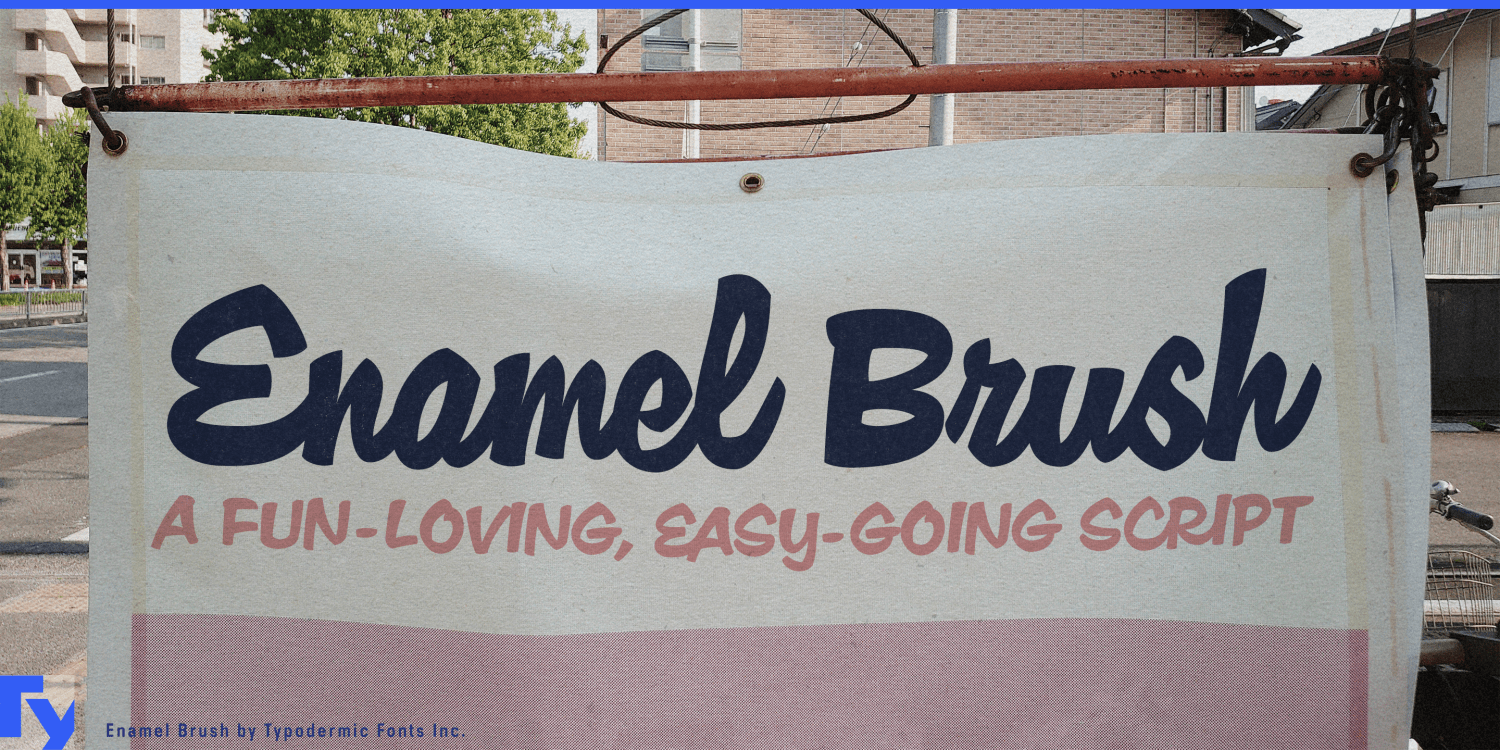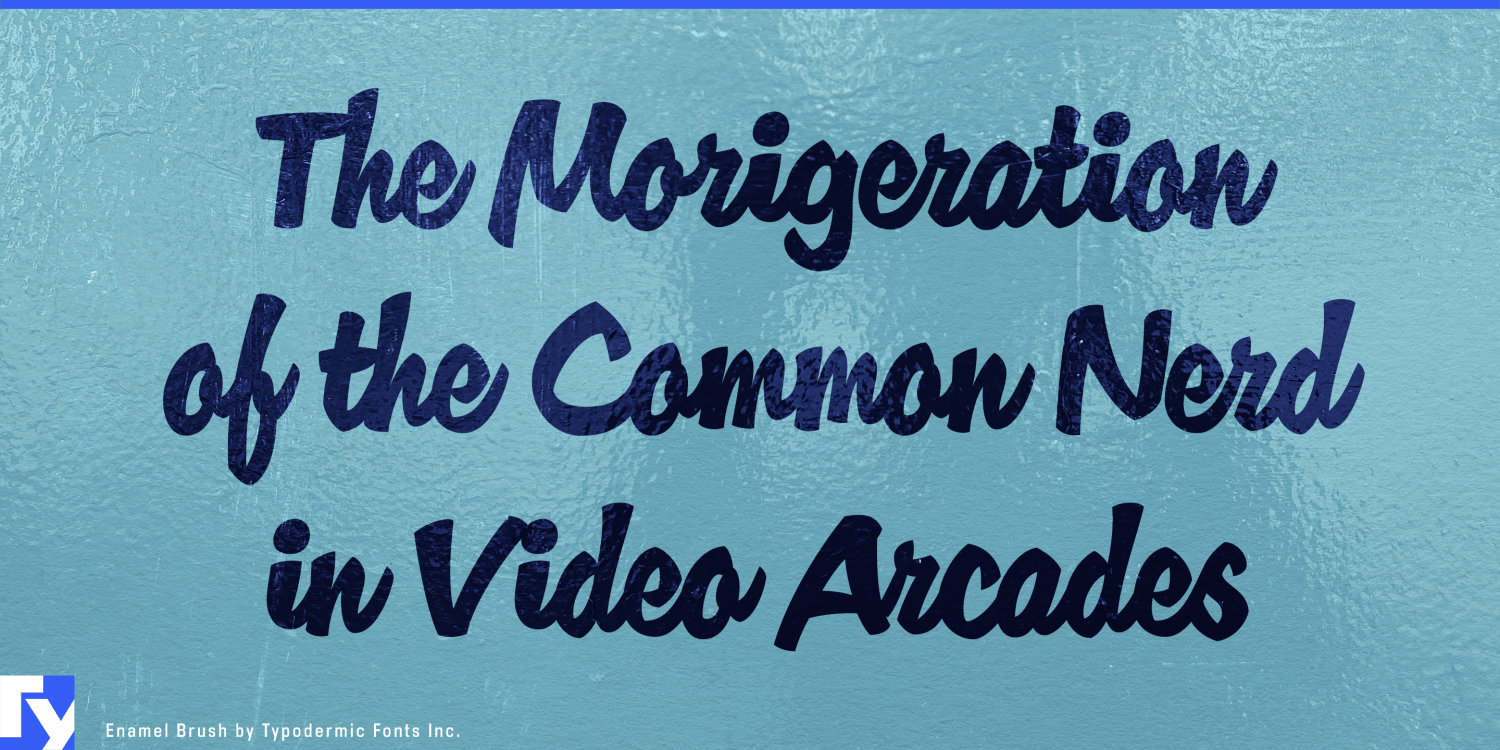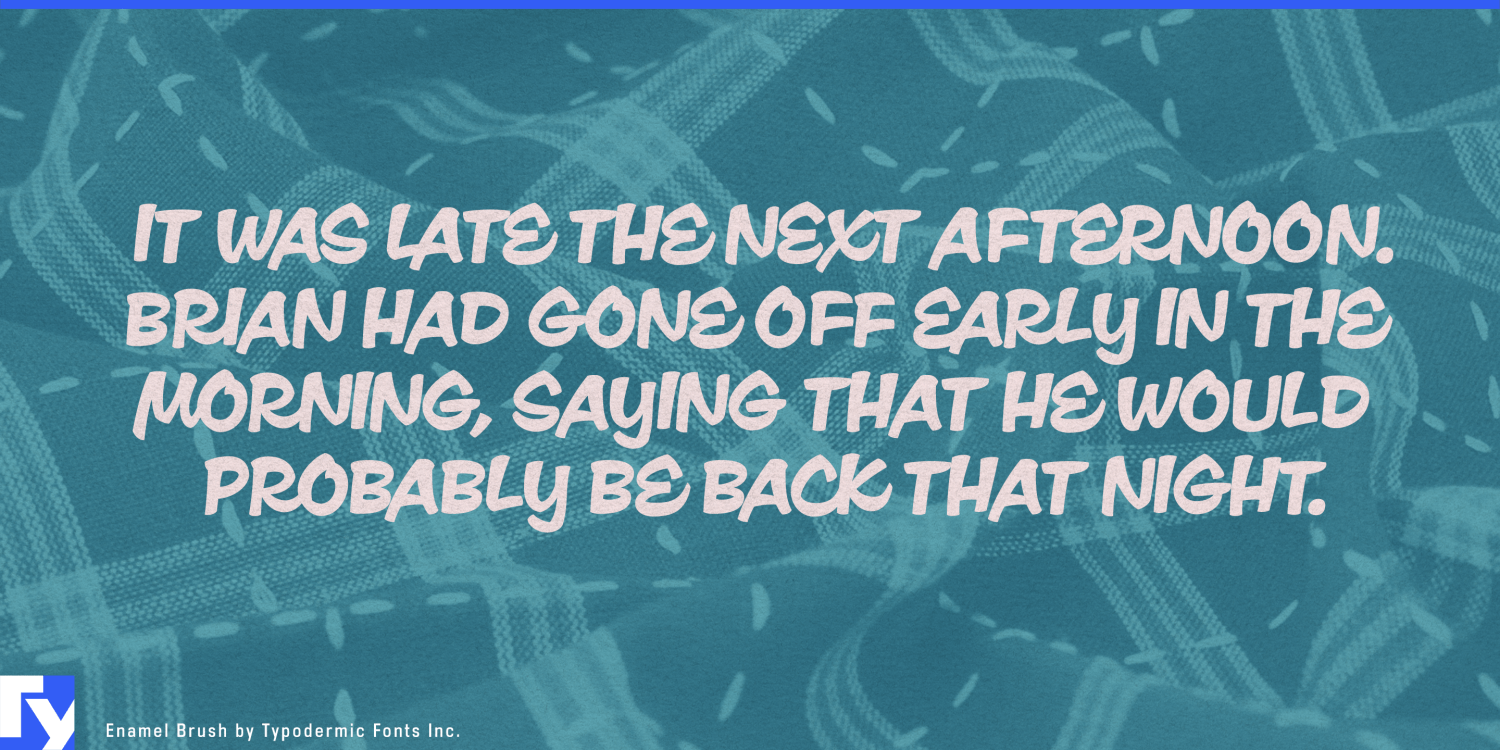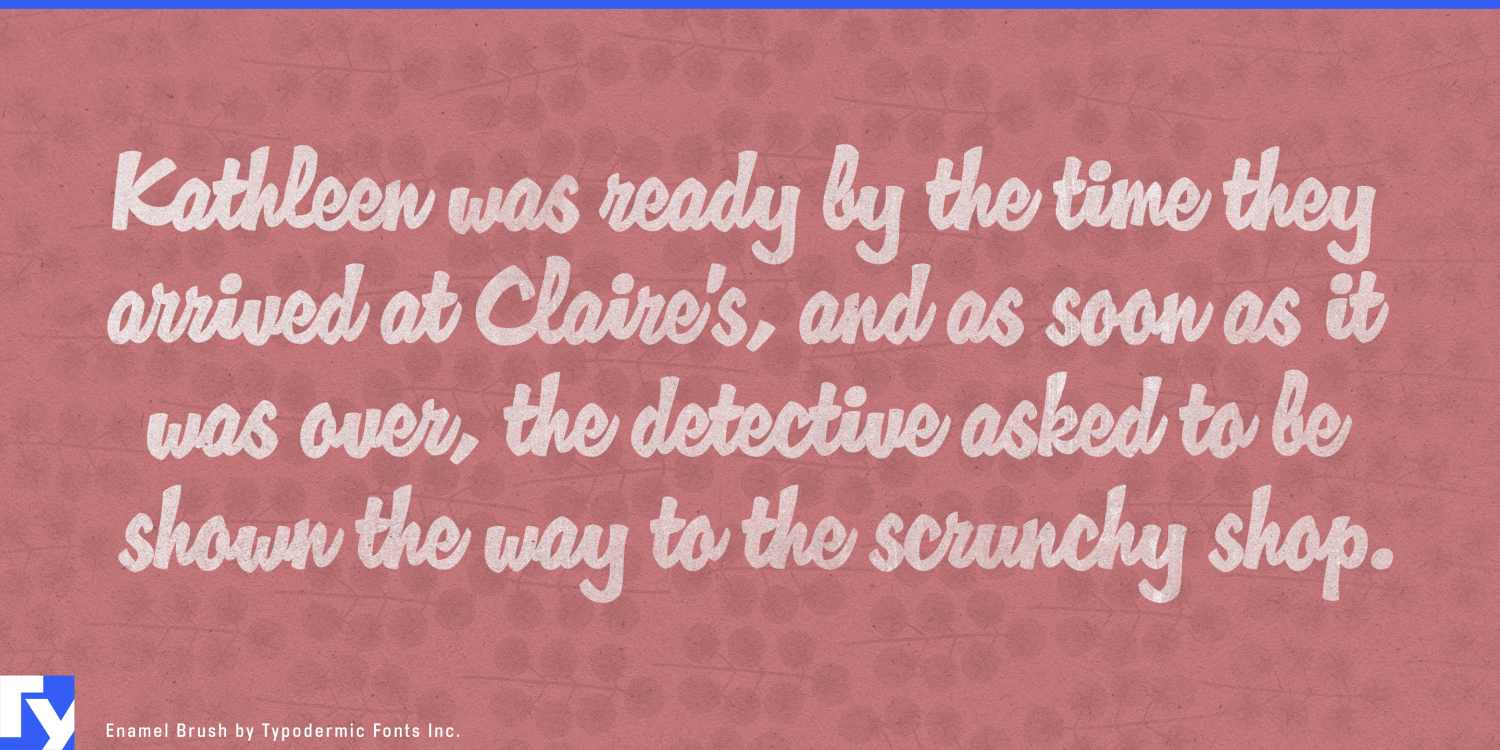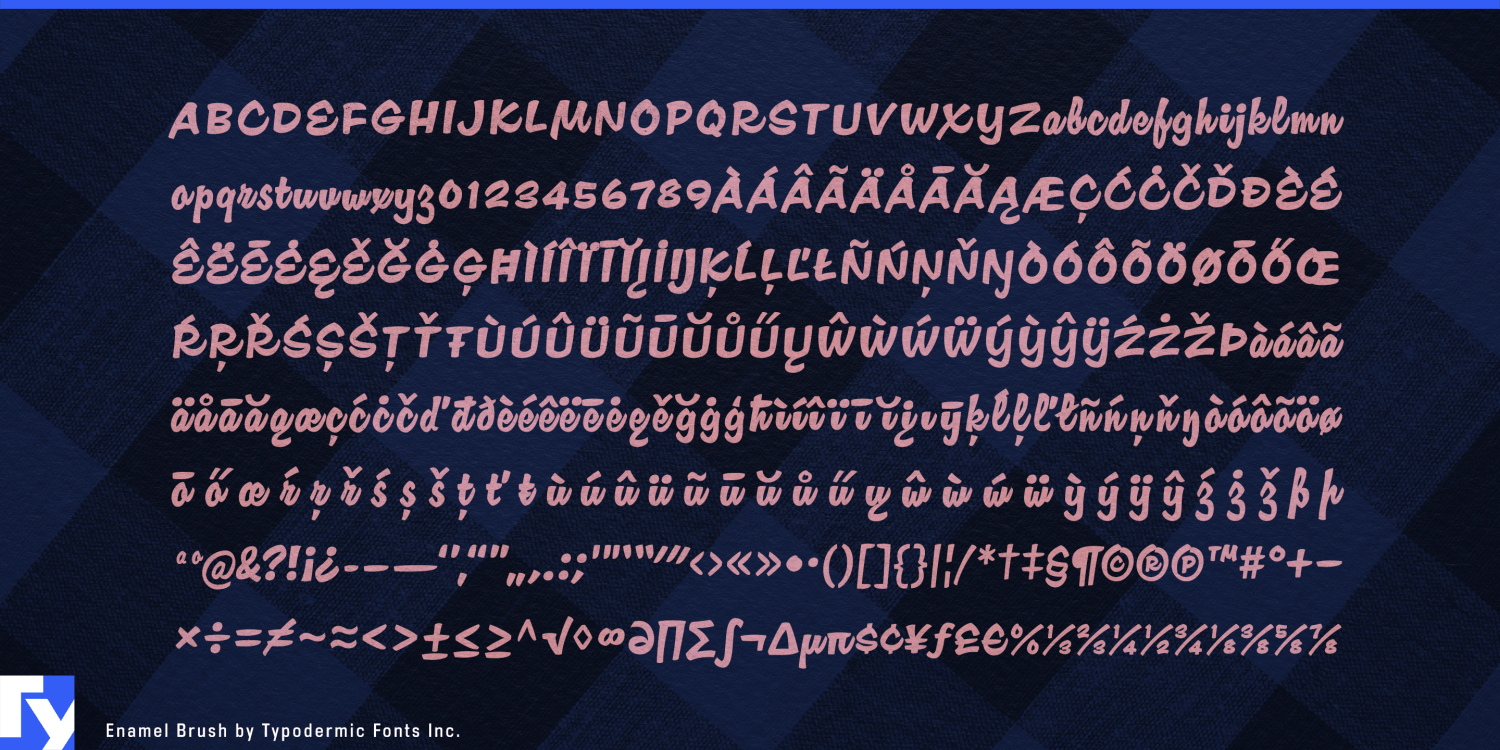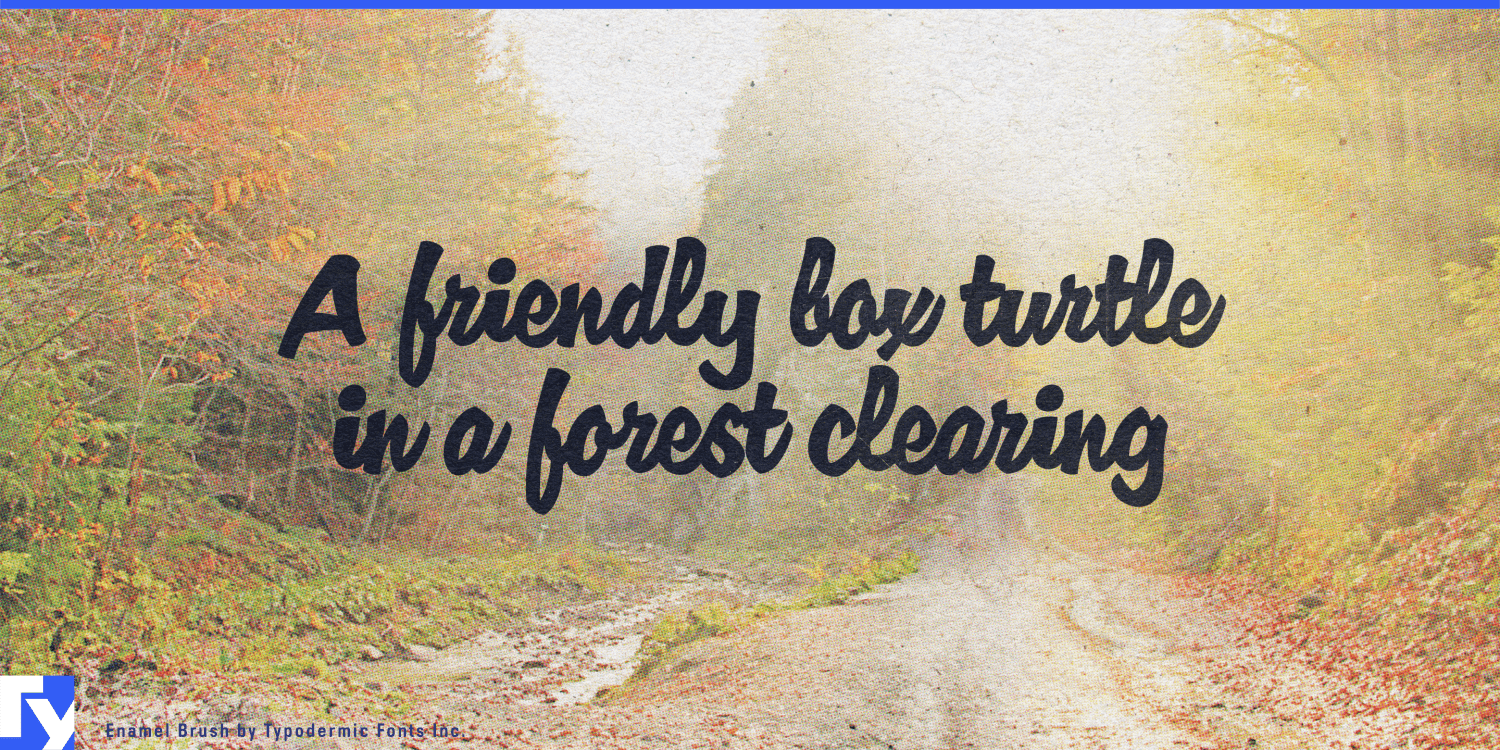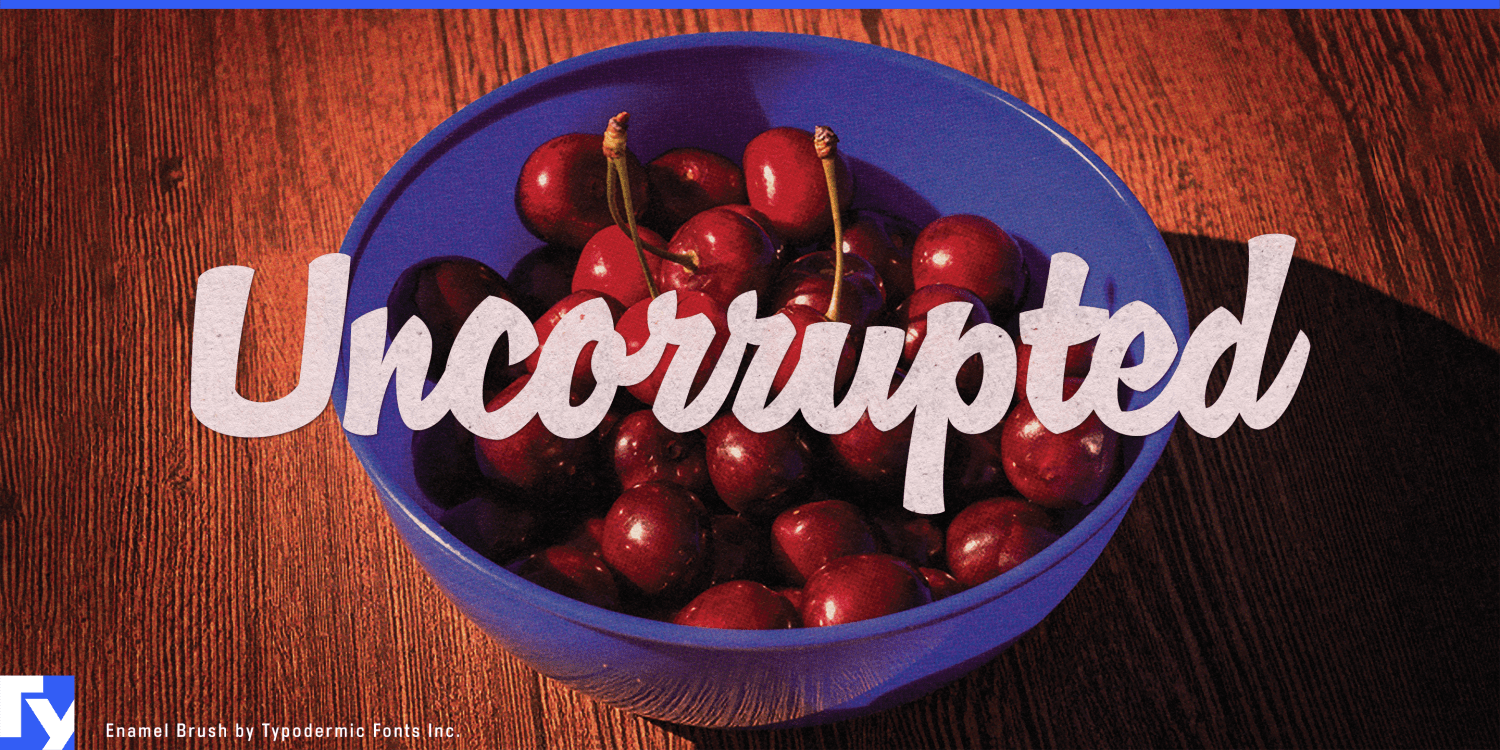
Enamel Brush
Buy NowStep back in time with Enamel Brush, a typeface that captures the vibrant spirit of mid-century design while catering to contemporary needs. Inspired by Emil Klumpp’s iconic Catalina typeface from 1955, Enamel Brush breathes new life into the post-war optimism that defined an era of boundless creativity.
Each stroke of Enamel Brush exudes confidence and character, making it the perfect choice for designers who want their work to speak volumes. Its bold, expressive lines don’t just communicate—they resonate with the viewer, evoking the handcrafted charm of a bygone era. But Enamel Brush isn’t content to live in the past. This typeface has been meticulously crafted for the modern designer, featuring OpenType ligatures that automatically replace certain letter pairings. The result? Text that flows with a natural, authentic rhythm, as if painted by a seasoned sign writer’s steady hand.
Whether you’re crafting a retro-inspired logo, designing a standout poster, or adding a dash of nostalgia to a website, Enamel Brush rises to the occasion. Its versatility shines across a wide spectrum of Latin-based European languages, ensuring your vintage-flavored message translates beautifully from Helsinki to Lisbon, from Reykjavík to Istanbul. In a world often dominated by sleek minimalism, Enamel Brush offers a refreshing alternative—a chance to infuse your projects with personality, warmth, and a touch of nostalgic flair. It’s more than just a typeface; it’s a time machine for your designs, transporting your audience to an era of unbridled optimism and creativity.
So, why settle for the ordinary when you can make your mark with Enamel Brush? Embrace the bold, the expressive, the timeless. Let Enamel Brush be the bridge between vintage charm and contemporary design in your next project.